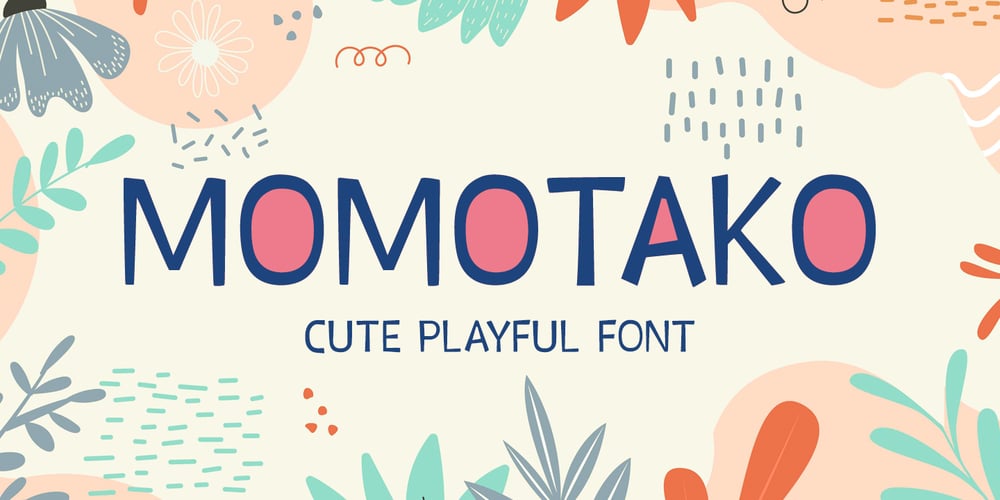
Momotako Font Family was designed by Abdul Malik Wisnu and published by Almarkha Type. Momotako contains 1 styles and family package options. Momotako is a Cute Playful Display font that will make your designs look modern, unique and fun.It’s perfect for labels, quotes, posters, DIY projects, branding, packaging, greeting cards, websites, photography overlays, signs, window art, scrapbooking, tags and so much more!